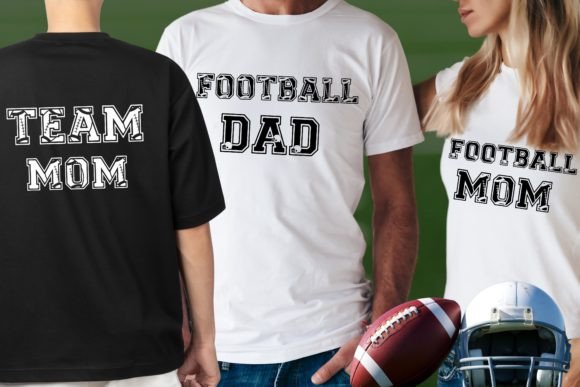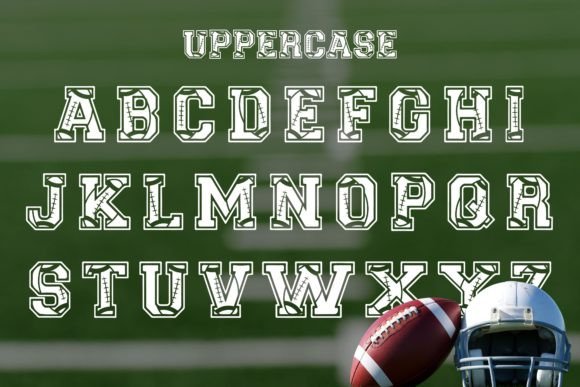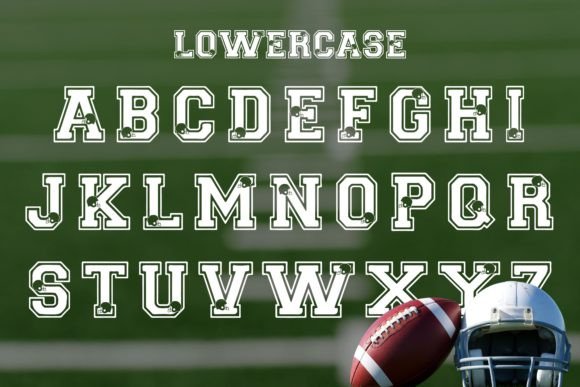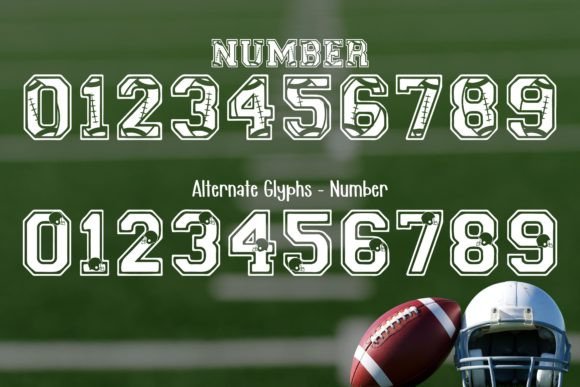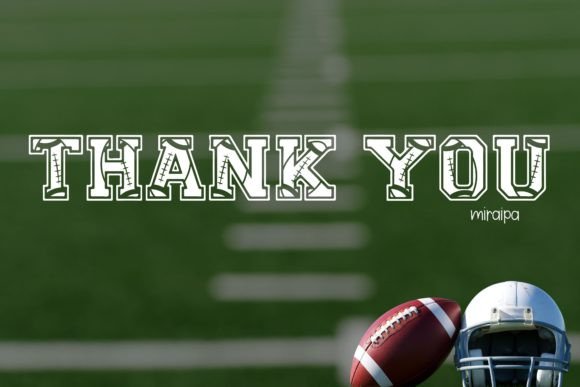
Have you ever been working on a project and suddenly, out of nowhere, you get that creative spark? The one where everything clicks, and you know exactly what you need to take your design to the next level? For me, that moment often comes when I stumble upon the perfect font. And trust me, I’ve found one that’s going to change the game for all you designers out there.
Meet the Football College Font, a fresh and unique decorative font that’s perfect for all your sports-related projects. This cool, sporty font is designed to add a touch of excitement and energy to your designs, making it a valuable addition to any designer’s toolkit. Whether you’re working on a sports-themed brochure, a team logo, or a social media graphic, the Football College Font is sure to score a touchdown with your audience.
Key Features of Football College Font
- Unique Characteristics: The font features a modern, clean, and sporty design, with bold and condensed letterforms that are perfect for sports-related projects.
- Character Set: Includes a wide range of characters, including uppercase and lowercase letters, numbers, and punctuation marks, as well as special characters and symbols.
Football College Font Review
Overall, I think Football College Font is an interesting font that could work well for certain projects. Here are a few things that stood out to me:
- ✨ The font has a unique, energetic feel that’s perfect for sports-related projects or anything that needs a fun, youthful vibe.
- ✨ The bold and italic versions of the font are well-designed and add some nice variety to the overall package.
- ✨ The font is highly customizable, which is great for designers who want to tailor the look to their specific needs.
- ⚠️ The font can feel a bit overwhelming if used in large quantities or at too large of a size. It’s best used in moderation or with careful design choices to balance out the look.
- ⚠️ The font’s unique feel may not be to everyone’s taste. It’s a bit of a love-it-or-hate-it situation, and some designers may find it too flashy or over-the-top.
Overall, I think Football College Font is a solid choice for designers who want to add a bit of energy and personality to their projects. Just be sure to use it wisely and with a critical eye.
For best results, use Football College Font for headlines, titles, and other prominent text elements. It’s also suitable for sports-themed projects, such as posters, flyers, and social media graphics.